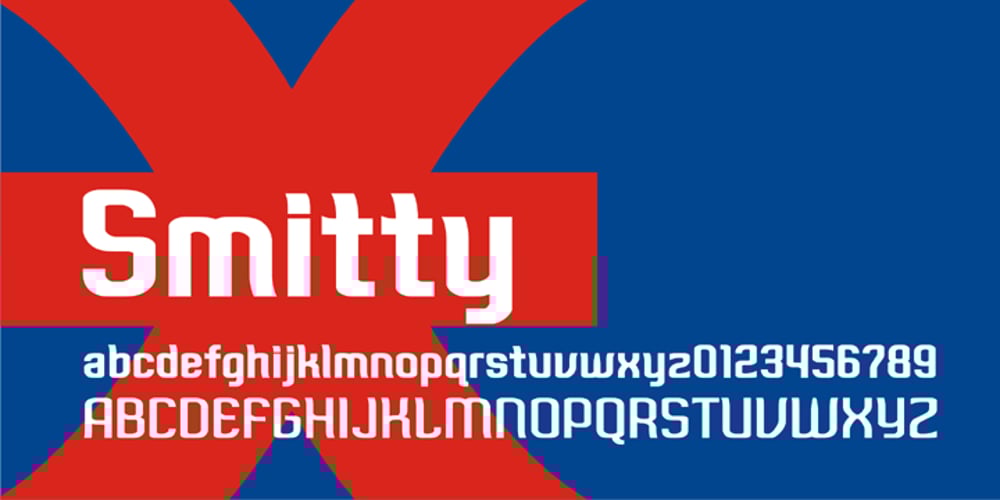
Smitty
Smitty font
Smitty Font Family was designed by Joey Stephen Maul and published by Joey Maul. Smitty contains 8 styles and family package options. Smitty was created to have a casual yet semi-formal look. It is well-suited for headlines or text and great for menus, signage and anything inviting. Contains four styles with Bold and Italics.